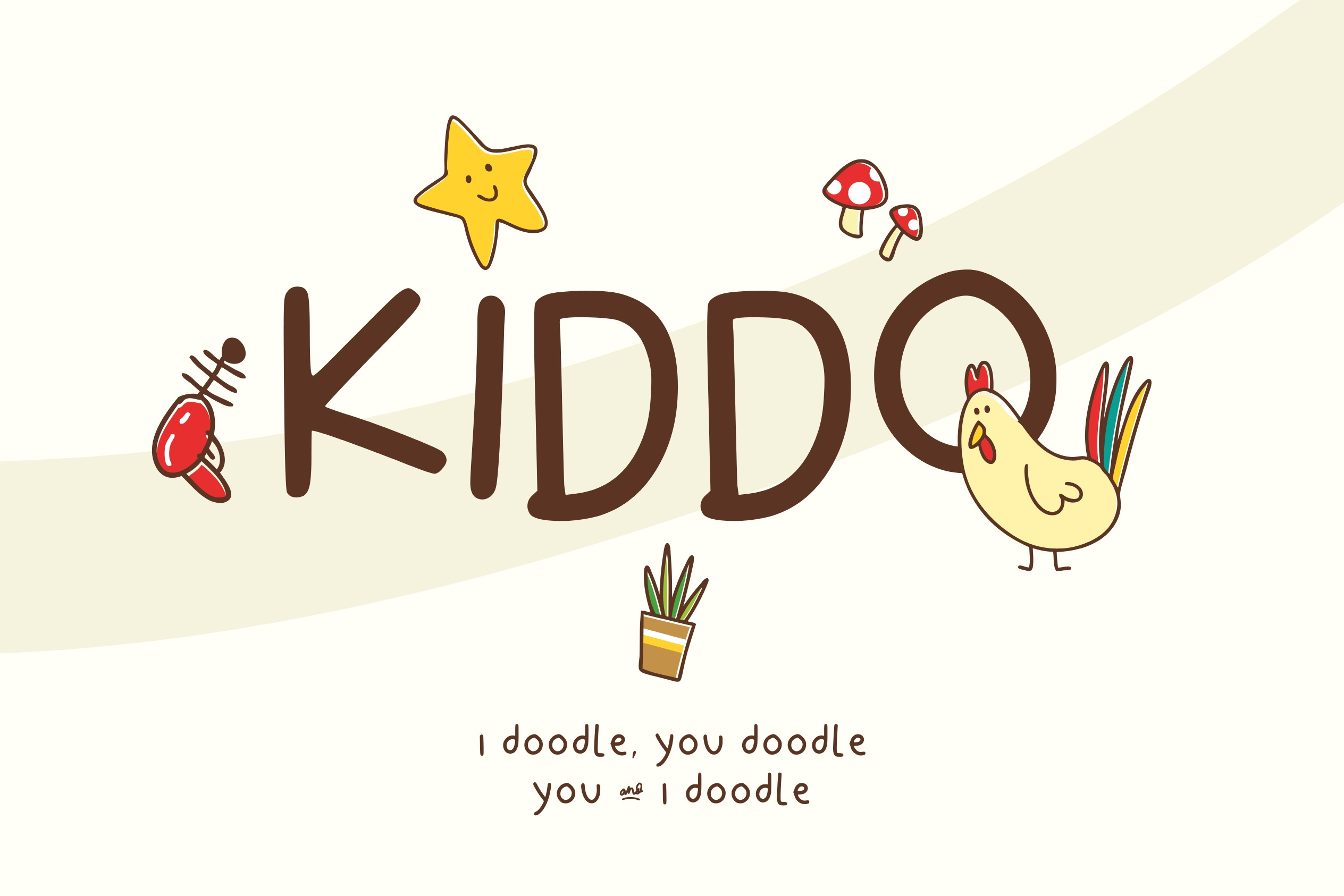
Kiddo is a handwritten font filled with honesty, love and imagination. perfect if you want to give a personal touch in your work or simply make something fun out of it :)